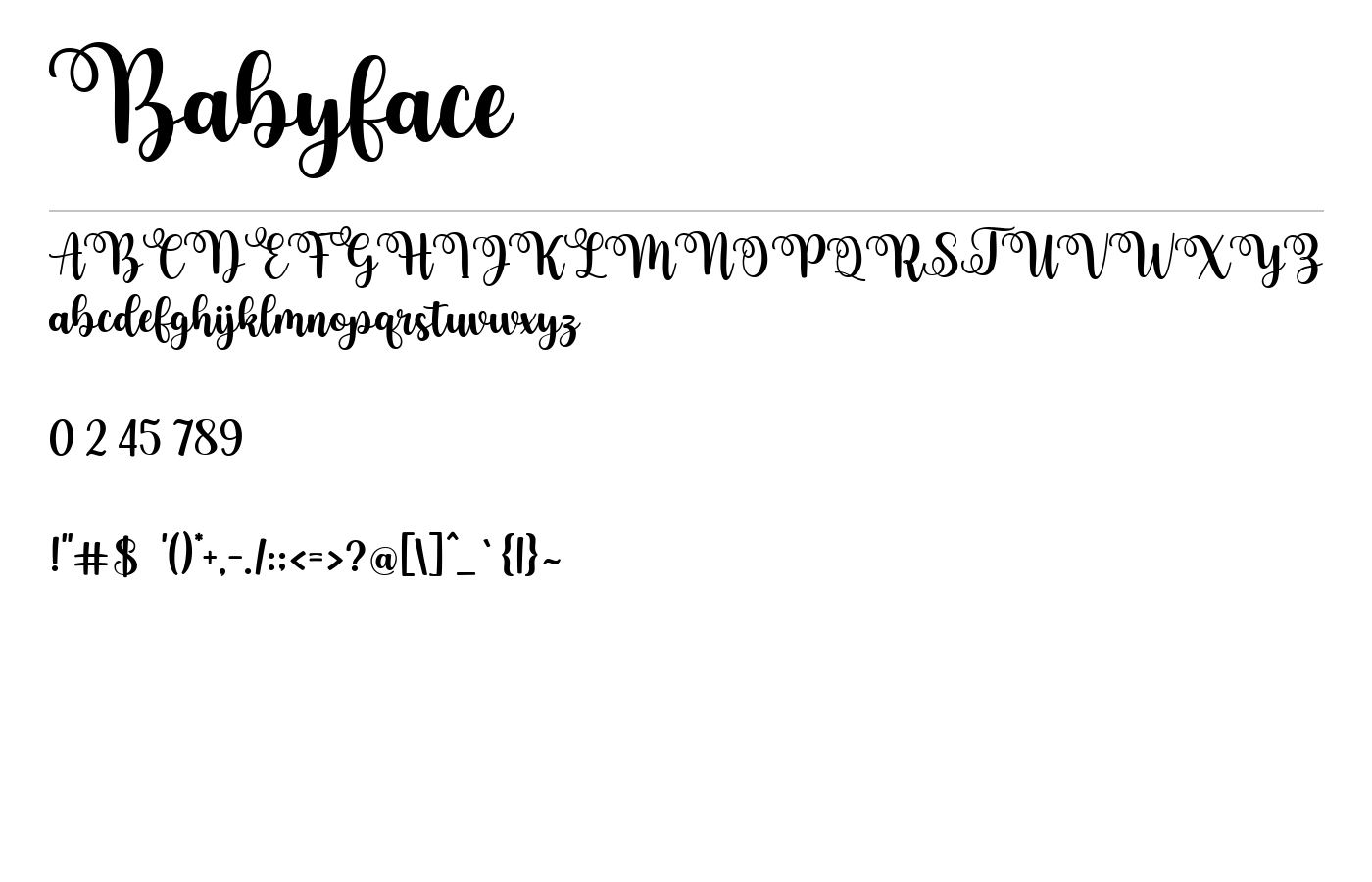
Babyface is a charming script font with elegant, flowing strokes that create a playful yet graceful feel. Its high contrast between thick and thin lines, along with ornate uppercase letters and a smooth, rounded lowercase, makes it ideal for whimsical and feminine designs such as wedding invitations, branding, or decorative headlines. This font’s stylish and friendly personality adds a warm and inviting touch to creative projects needing a handcrafted, sophisticated look.
Babyface Font
About Babyface Font
| Designer | Muammar Kadafi |